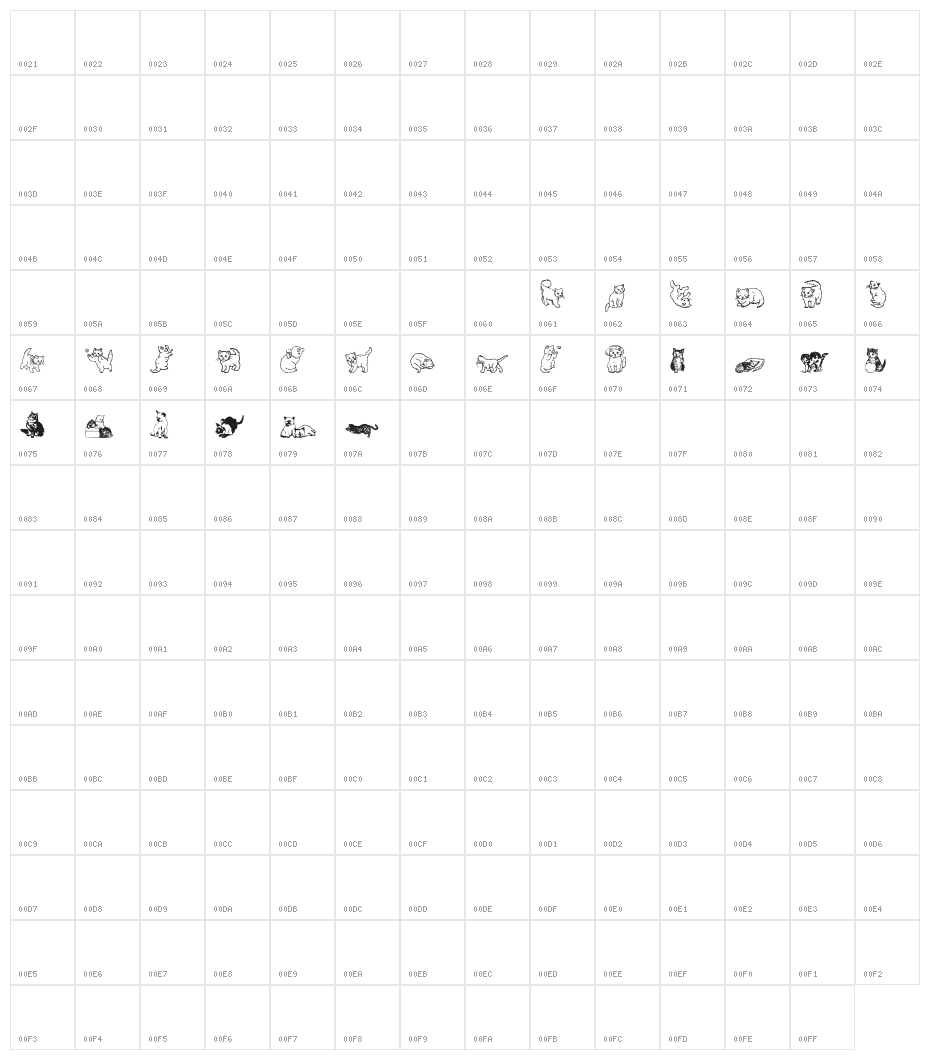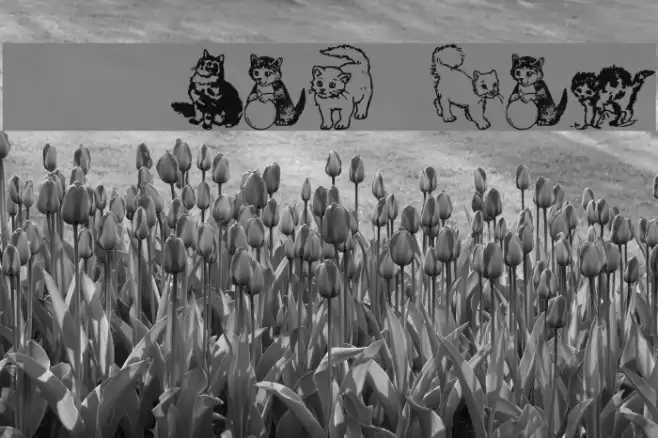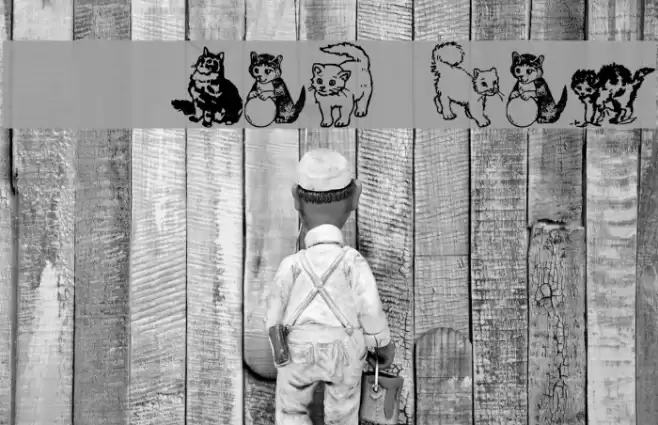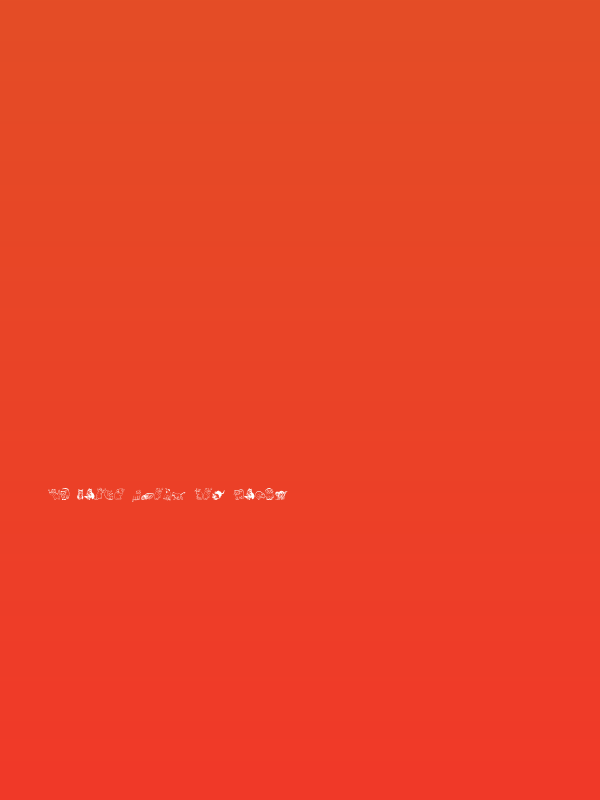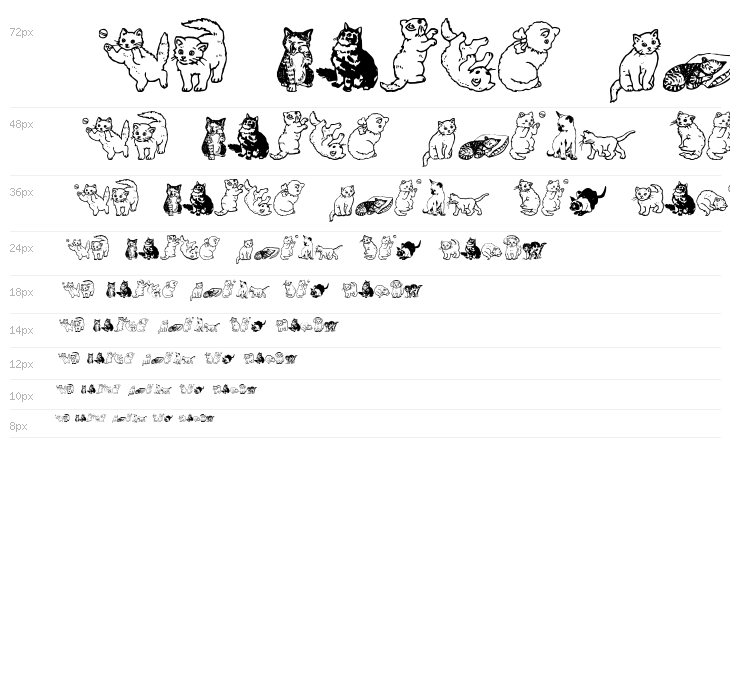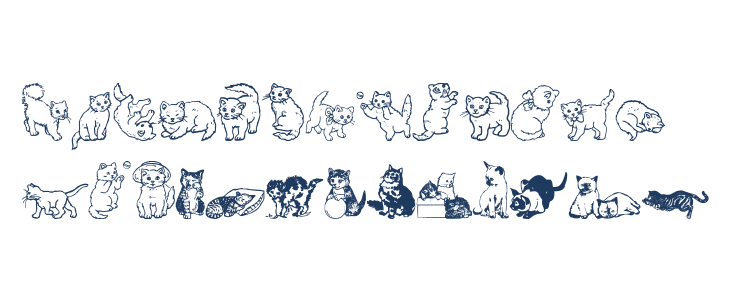
WWKuteKats Font
WWKuteKats Description
A playful decorative font featuring hand-drawn illustrations of various cats in different poses and activities, each glyph representing a unique cat or cat-related scene.
| Overall Style | Playful, Whimsical, Decorative |
| Use Case | Logos, Headlines, Themed graphics, Invitations |
| Proposed Projects | Children's books, pet store branding, greeting cards, playful posters, educational materials. |